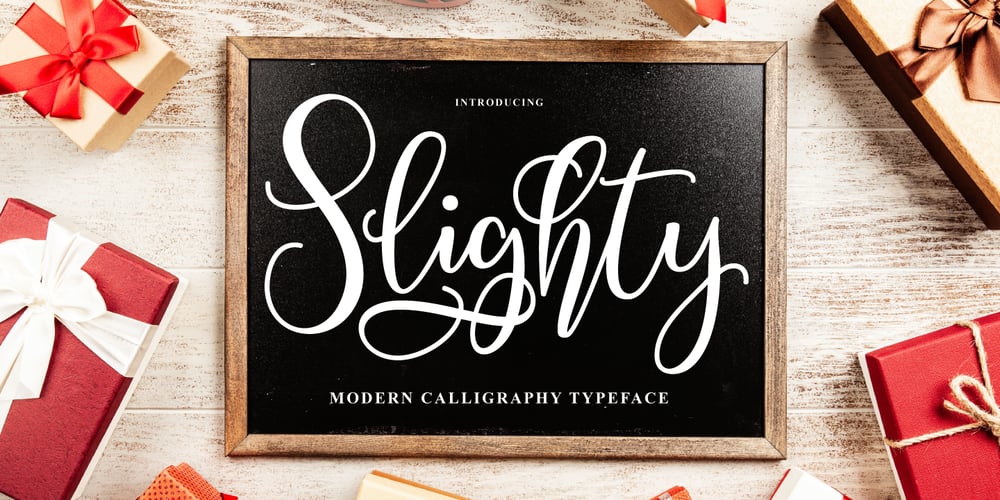
Slighty Script Font Family was designed by Ferdiansyah and published by ijemrockart. Slighty Script contains 1 styles and family package options. Introducing my new font Slighty Script is a unique blend of classic and modern font. imperfect style ups and downs, like a dance letters, smooth, clean and simple. Perfect for wedding, event, invitation, escort card, table number, header menus, display, logos, slider blog, custom address, stamps, packaging, greeting card, etc.Slighty Script including alternate glyph and beautiful swirl in a font including stylistic sets, Ligatures etc. The Open Type features can be accessed by using Open Type savvy programs such as Adobe Illustrator CS, Adobe Indesign & CorelDraw X6-X7 and Microsoft Word. And this Font has given PUA unicode (specially coded fonts). so that all the alternate characters can easily be accessed in full by a craftsman or designer.If you don’t have a program that supports OpenType features such as Adobe Illustrator and CorelDraw X Versions, you can access all the alternate glyphs using Font Book (Mac) or Character Map (Windows).